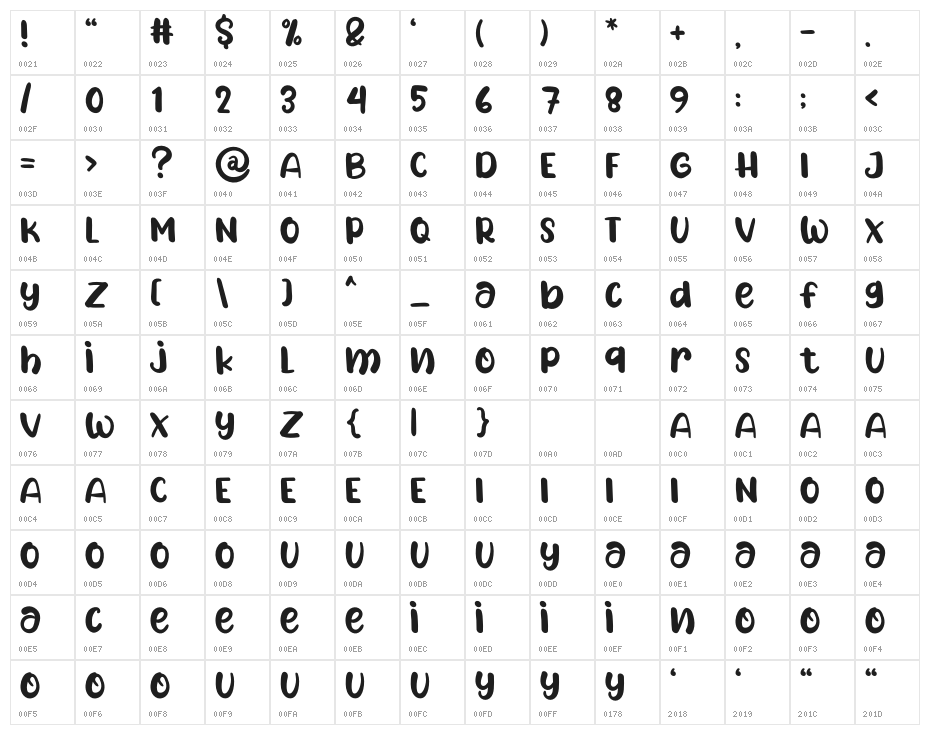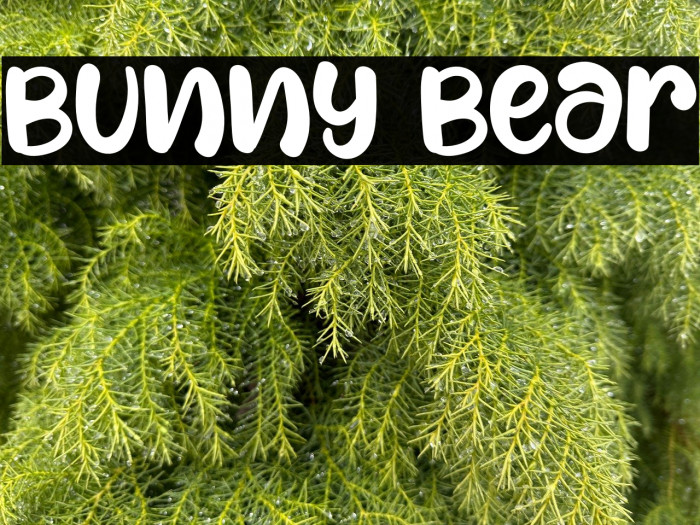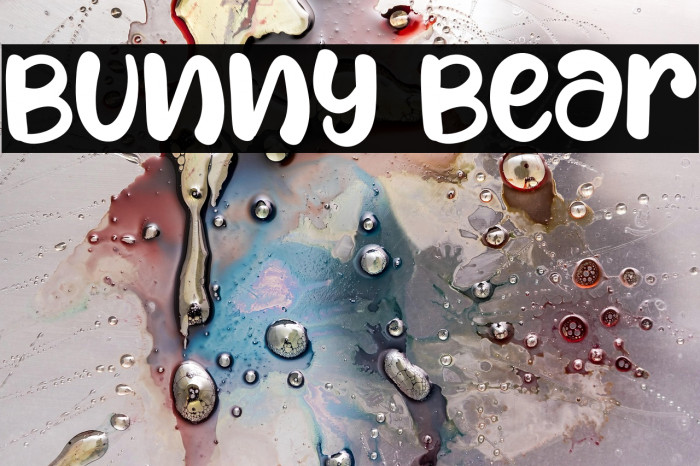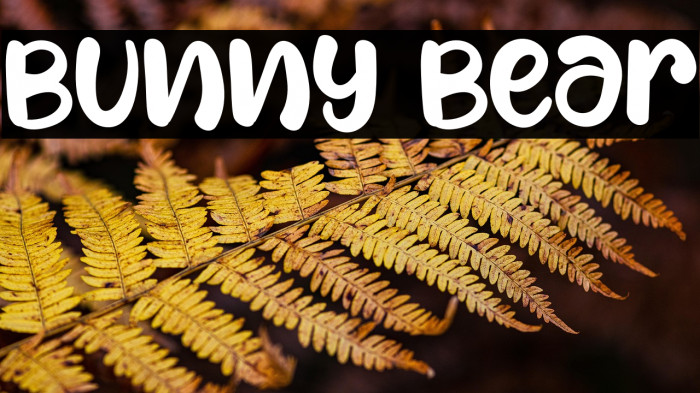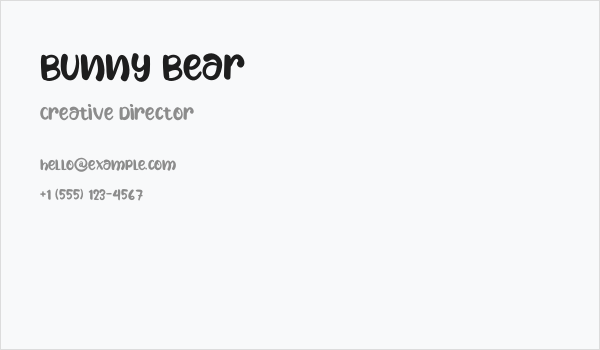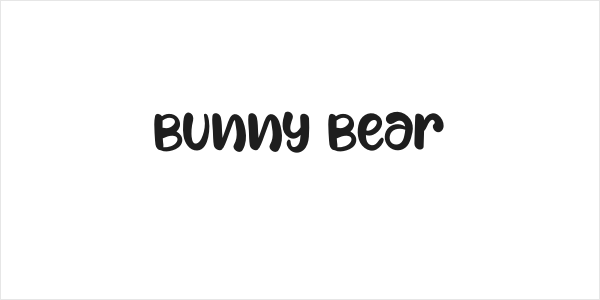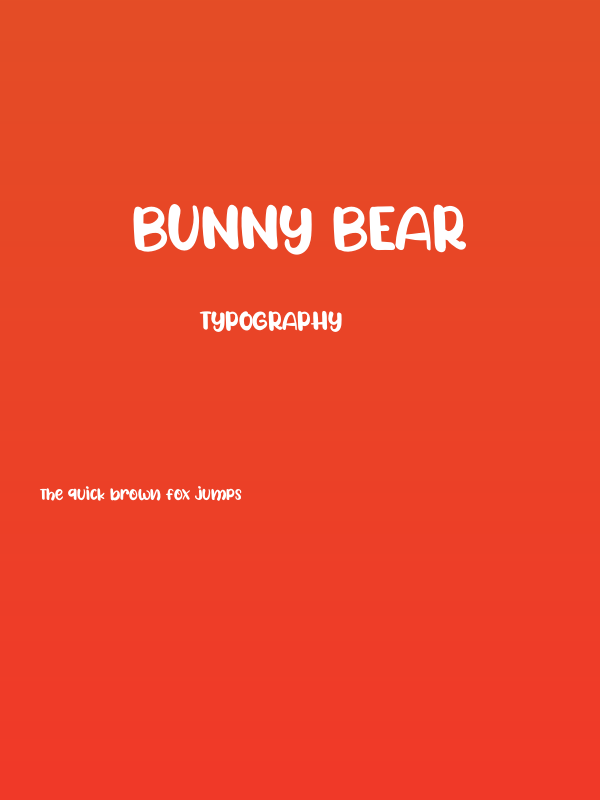
Bunny Bear Font
Bunny Bear Description
This playful and bold font features rounded, bubbly characters that exude a sense of fun and whimsy. The letters are thick and have a consistent stroke width, giving them a strong presence on the page. The uppercase and lowercase letters maintain a uniform style, with slight variations in curvature that add to the font's charm. Numbers and special characters are equally bold and rounded, ensuring consistency across all text elements. This font's design is reminiscent of hand-drawn lettering, making it ideal for projects that require a personal touch.
| Proposed Projects | Ideal for children's books, playful branding, greeting cards, and creative posters. |